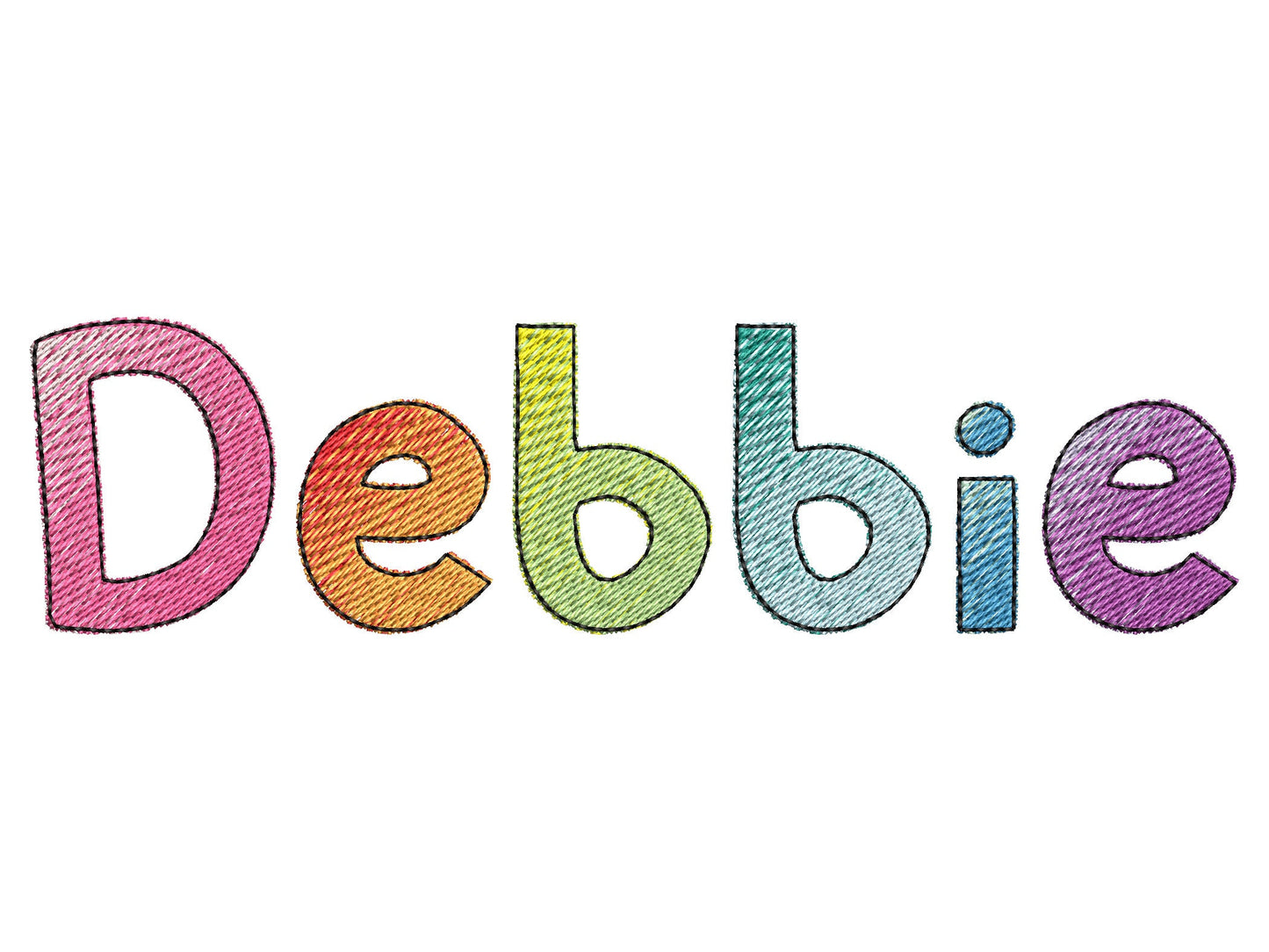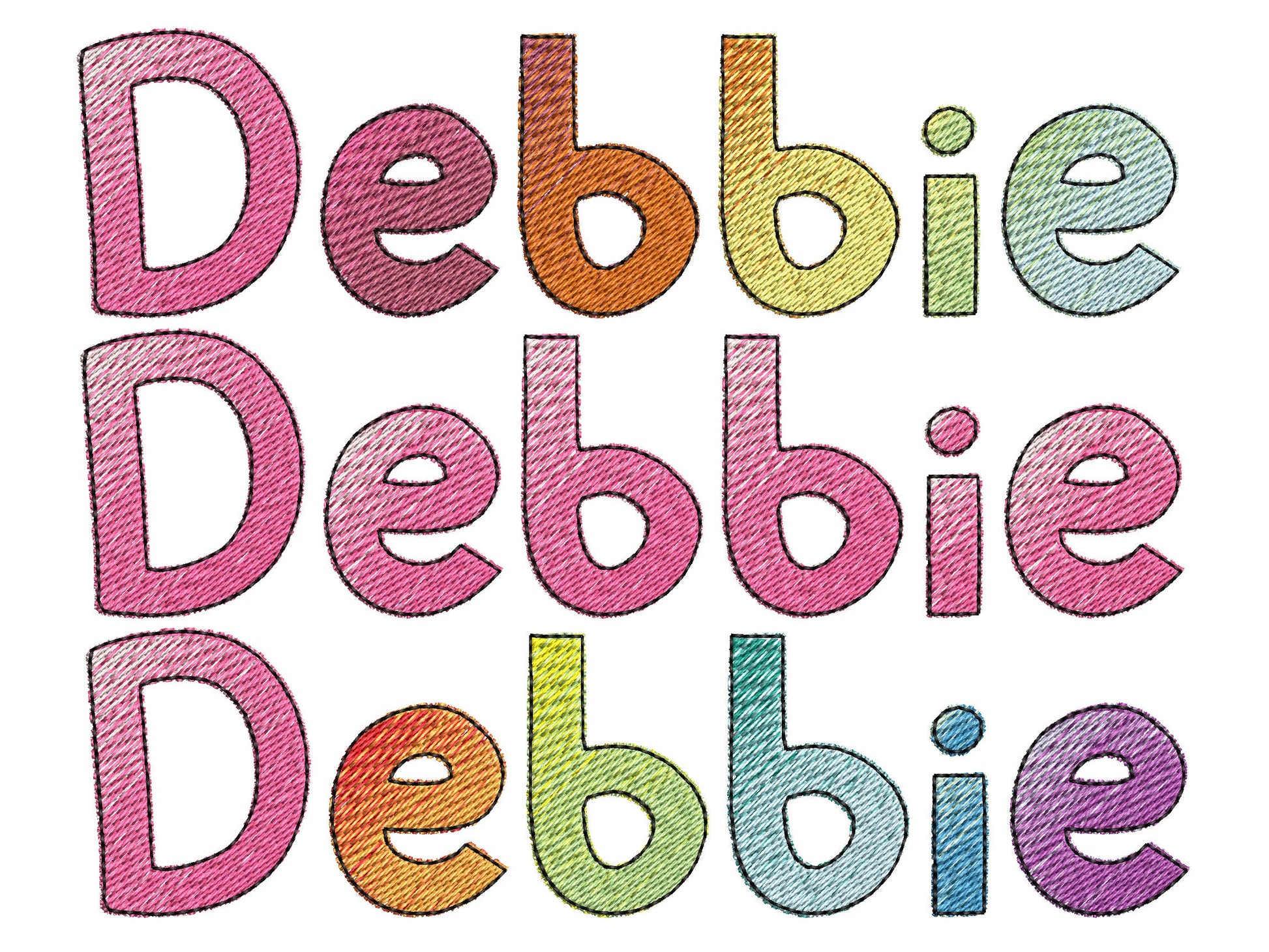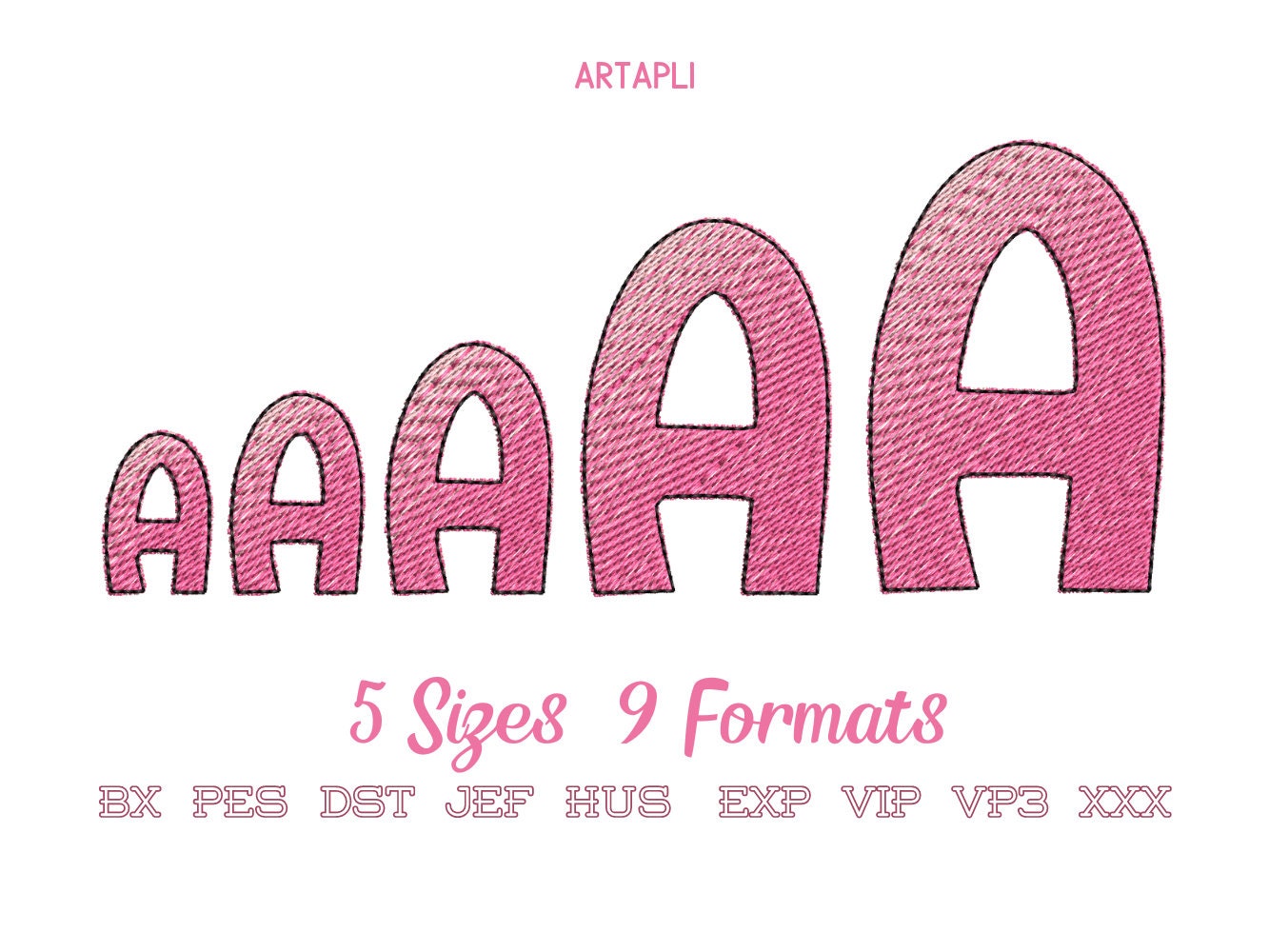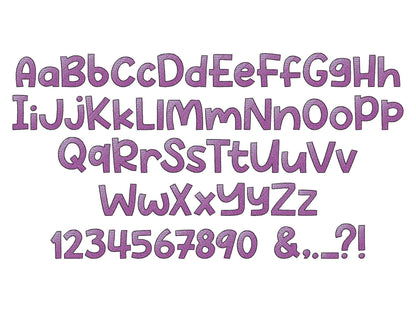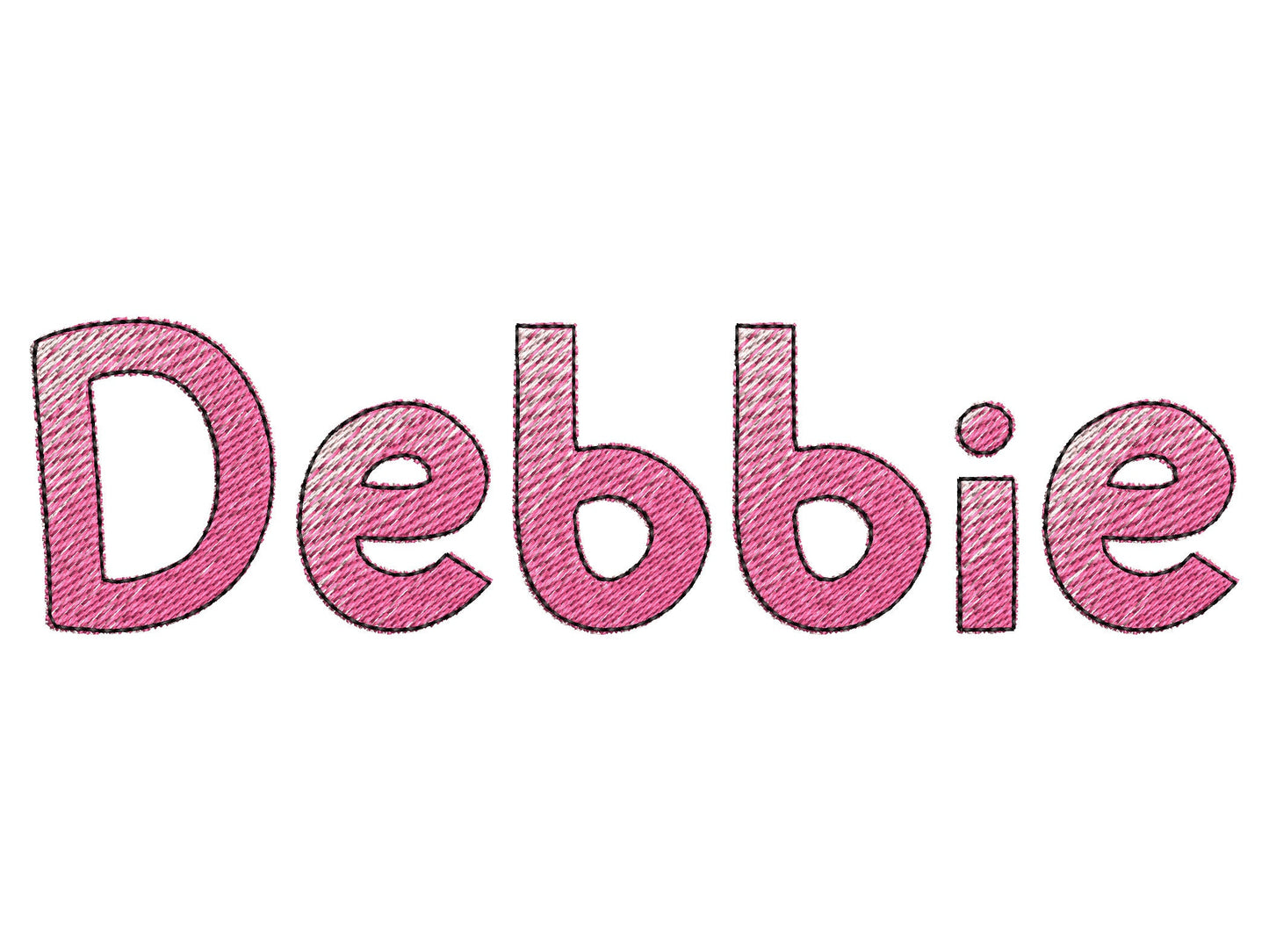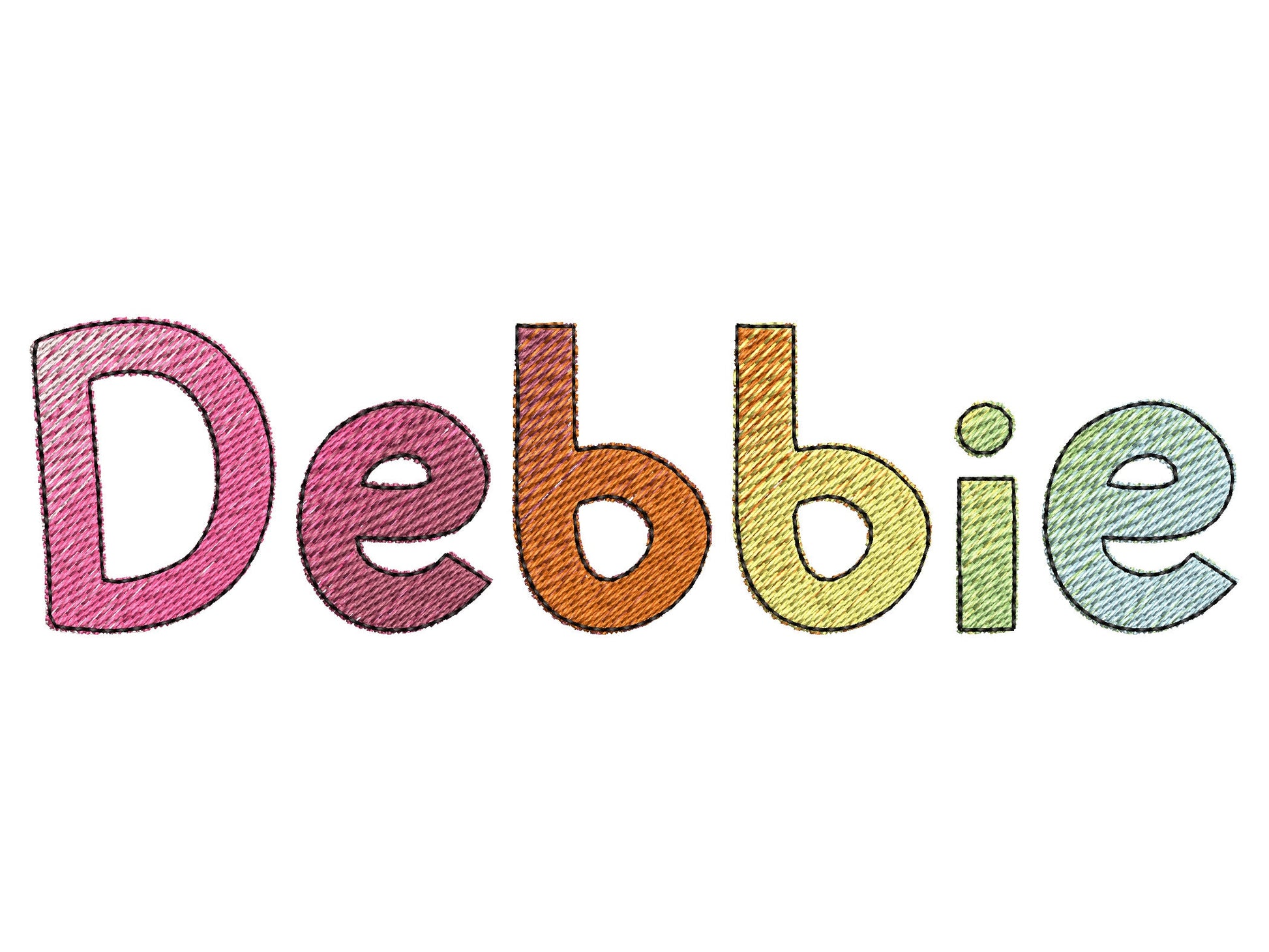
Iridscent 2-Color Ombre Gradient Font
Stitch one color, change thread and stitch the second, and play with color pairs as you like. Uppercase and lowercase letters, numbers and punctuation in six sizes: 1, 1.2, 1.5, 2, 2.3 and 2.7 inches.
- Iridescent 2-color font
- Uppercase, lowercase, numbers 0-9, punctuation
- 6 sizes, 1 to 2.7 in